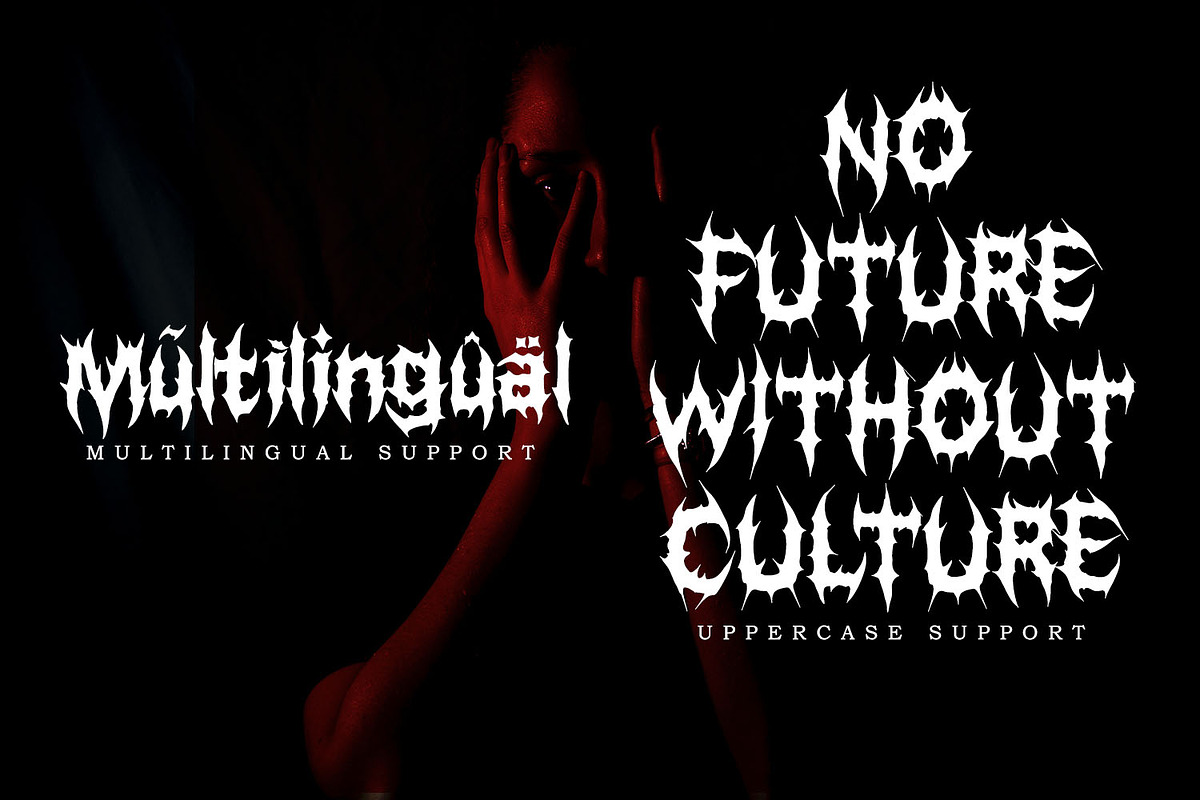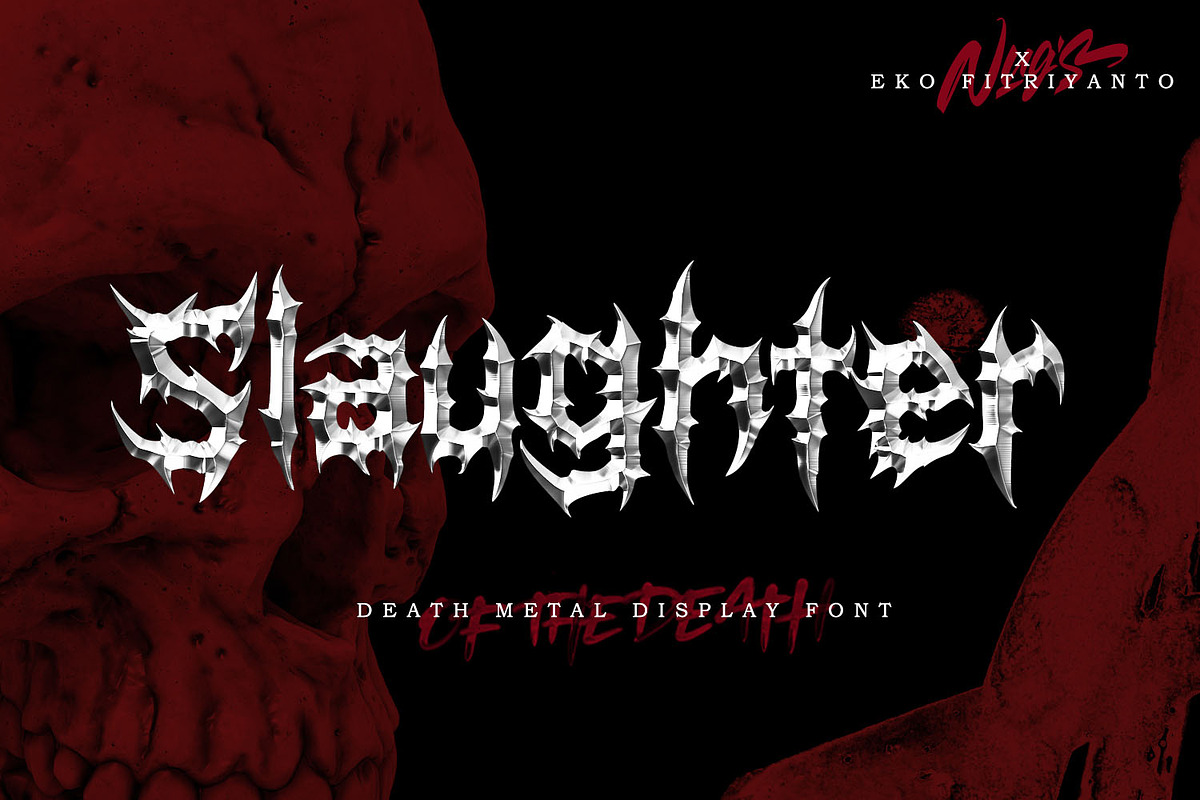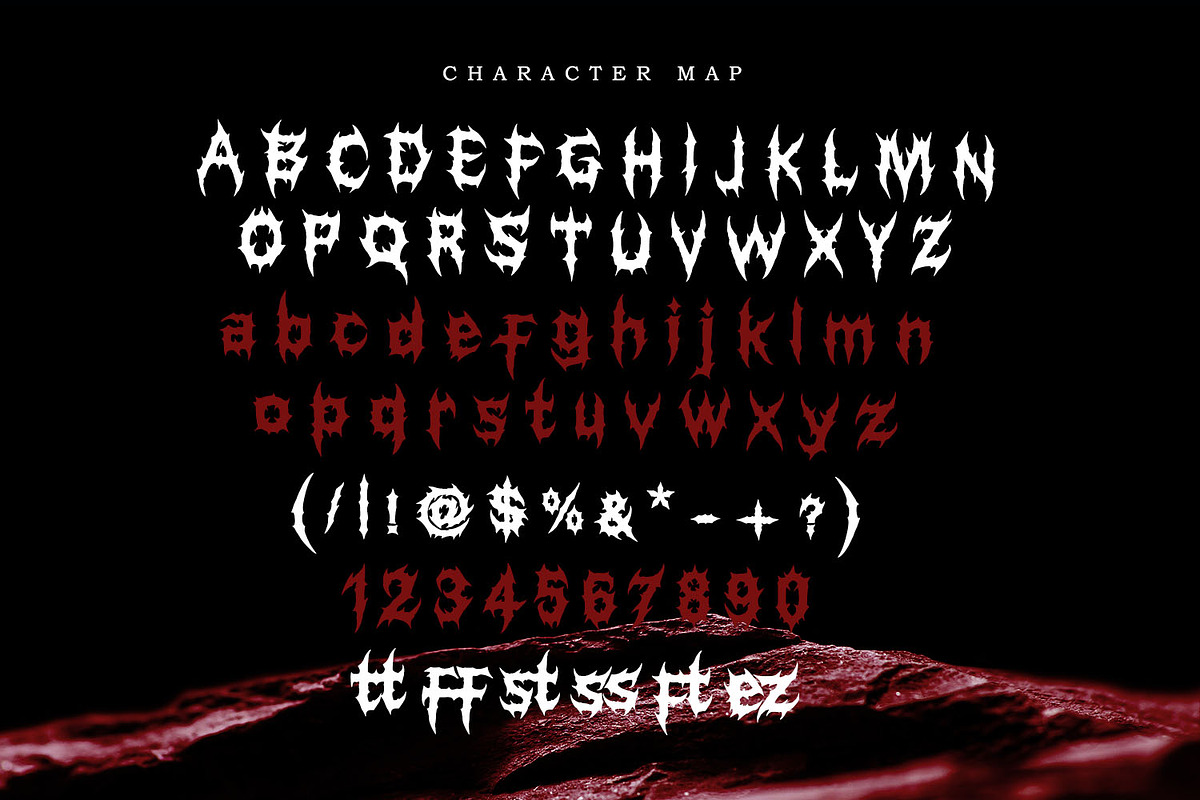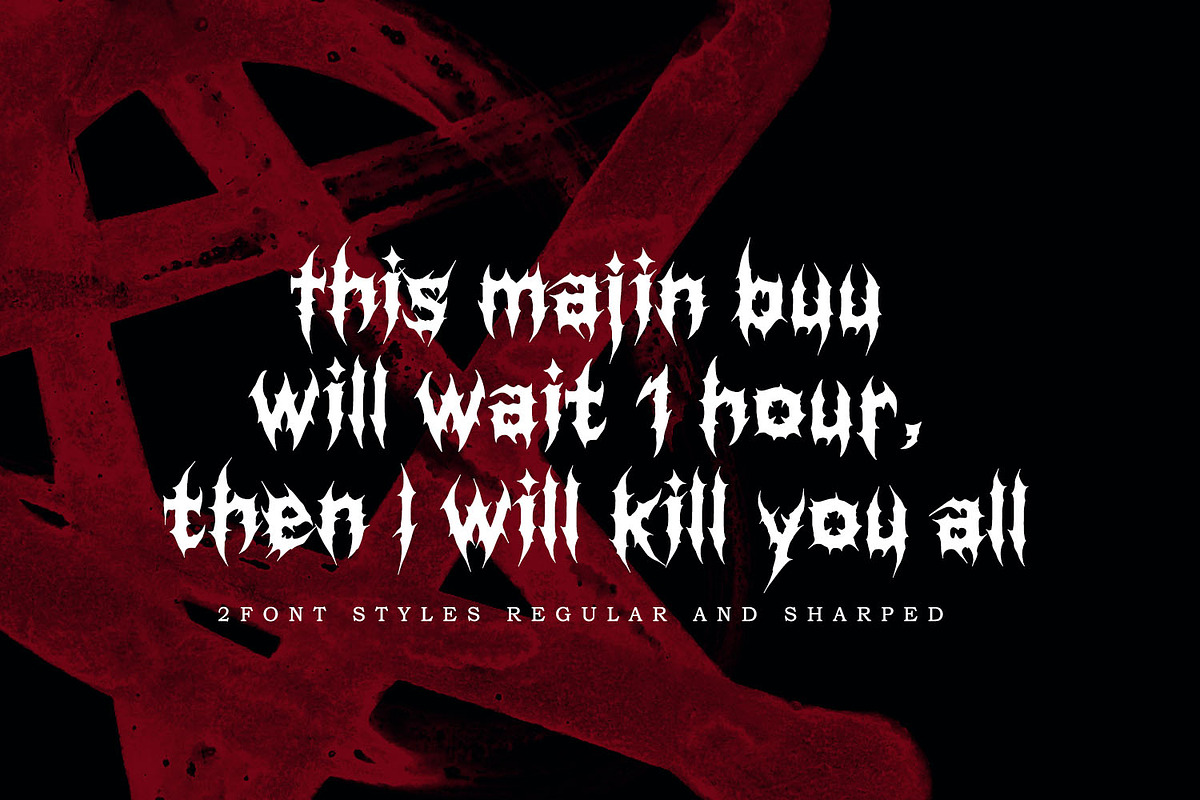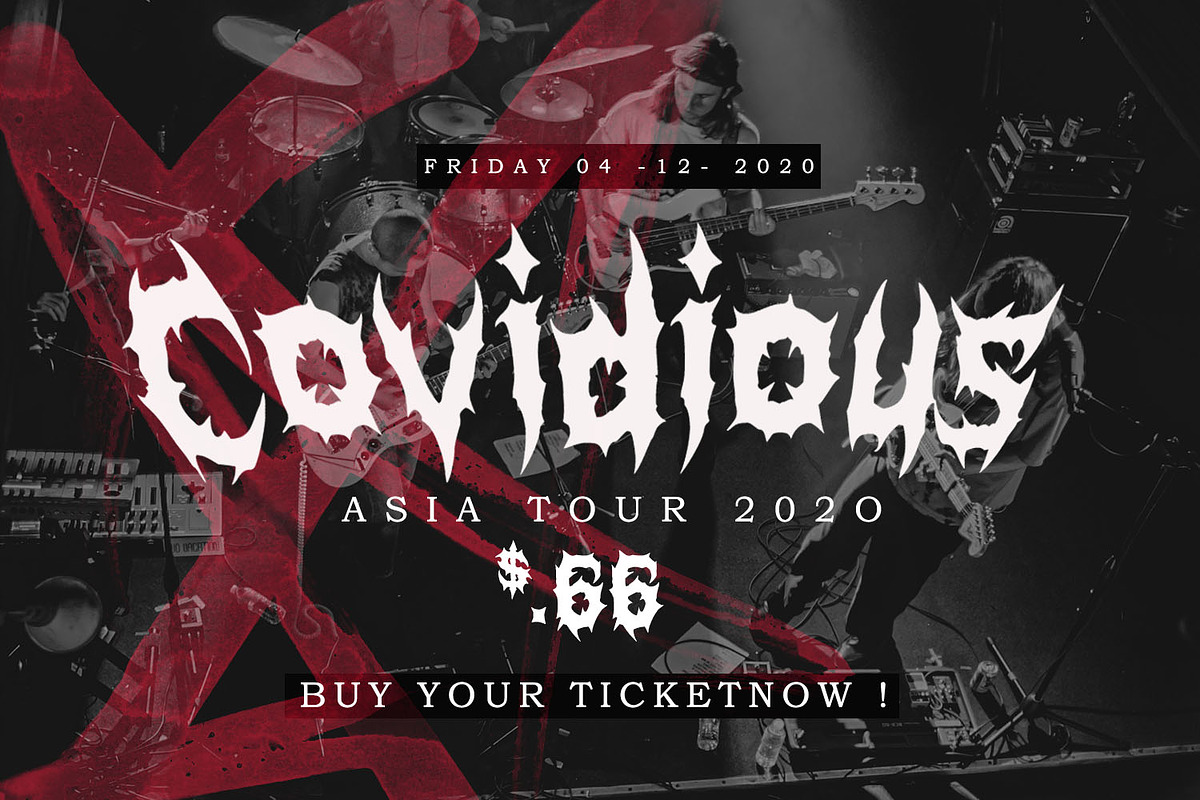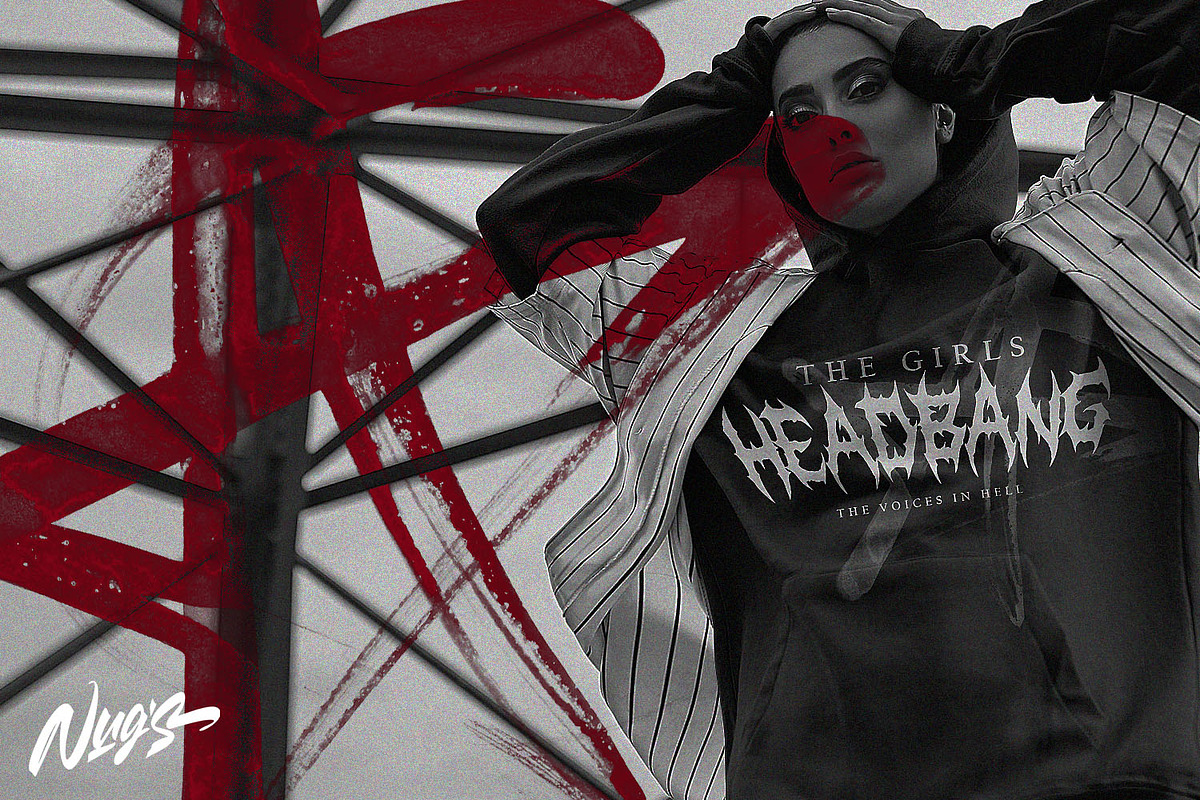
Slaughter
The Slaughter is a death metal font and it is perfect for creepy, but still Readable for those of you who want to create a metal band logo, t-shirt design, this font is perfect for you m/